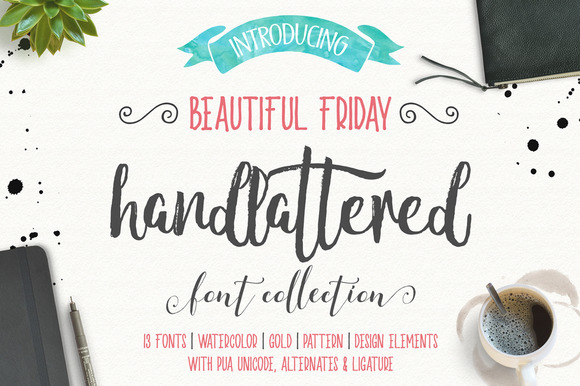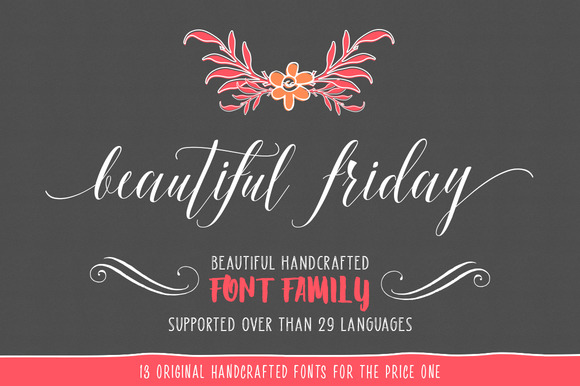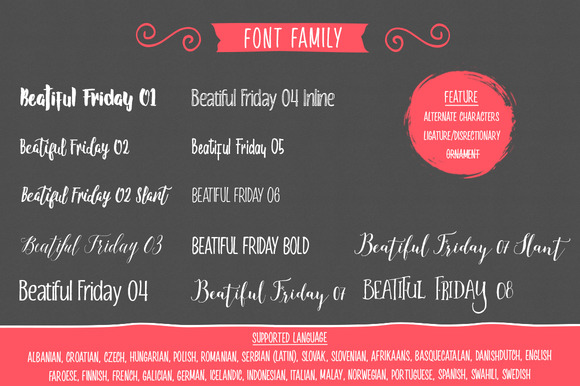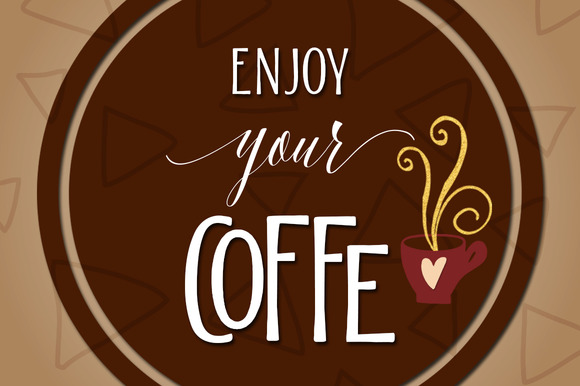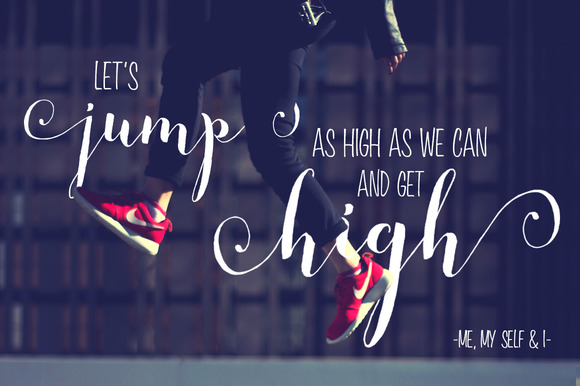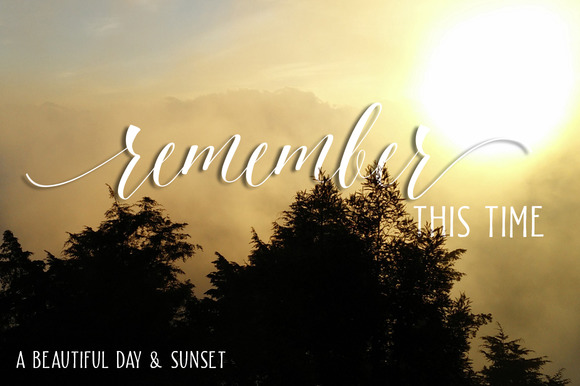
Beautiful Friday Font
About Beautiful Friday Font
Beautiful Friday is a modern typeface and will give your design an elegant feeling. It has hand sketched design elements and watercolor textures. It can be used for various purposes such as headings, logos, invitations, t-shirt designs, greeting cards, posters, labels, book covers, brochures and much more.